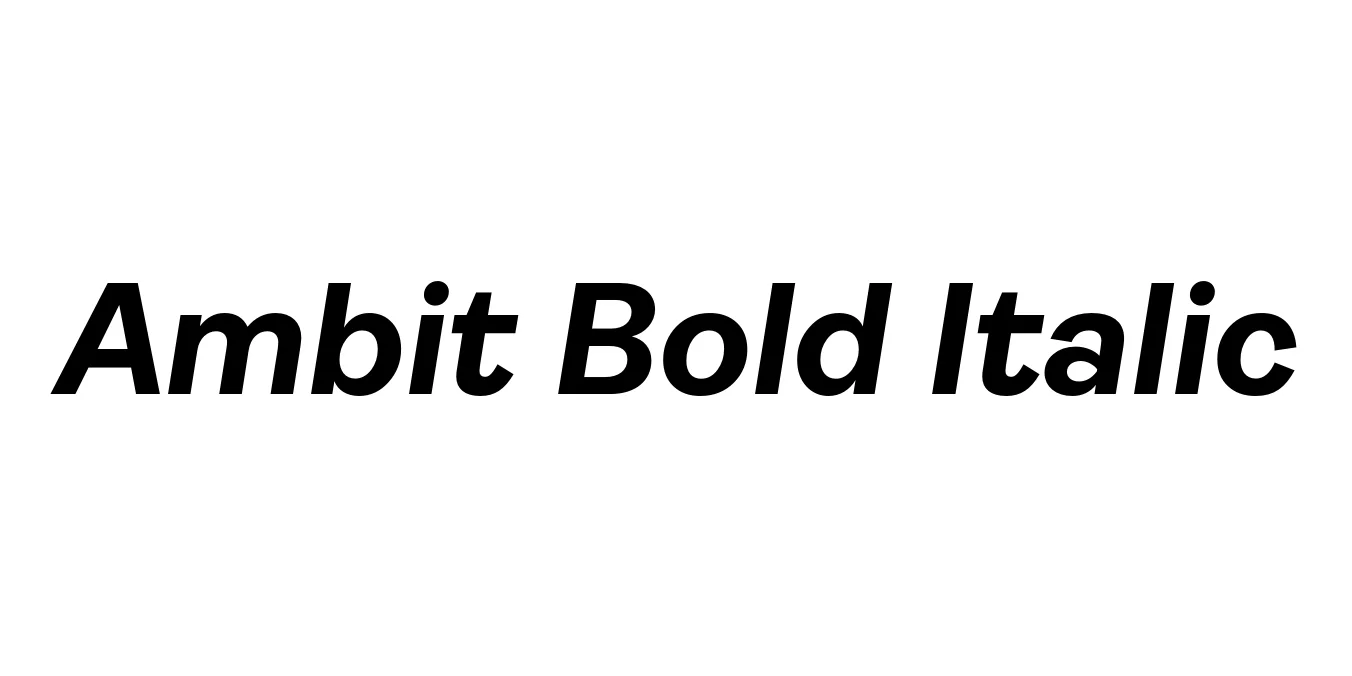
Ambit Bold Italic
Designed by Cédric Itting
Ambit Bold Italic is a distinctive and eccentric sans-serif typeface designed by Cédric Itting and published through CoType Foundries. It draws inspiration from early grotesque typefaces but introduces a modern, playful twist with its unique anatomical features, such as the characteristic curls in the terminals. This specific weight combines the strength of a bold stroke with a dynamic italic slant, making it highly effective for grabbing attention in contemporary design environments.
The Ambit family is widely celebrated for its ability to balance quirky personality with functional readability. Because it avoids the sterile feel of more traditional neo-grotesques, it has become a popular choice for brands looking to establish a voice that is both professional and approachable. Whether used in digital interfaces or high-end print editorial, Ambit Bold Italic provides a sophisticated aesthetic that feels fresh and forward-thinking.
Ambit Bold Italic Best Uses
Creating unique visual identities for tech startups and creative agencies.
High-impact headlines and pull-quotes in fashion or lifestyle magazines.
Eye-catching social media graphics and digital marketing banners.
Bold navigation elements and call-to-action buttons.